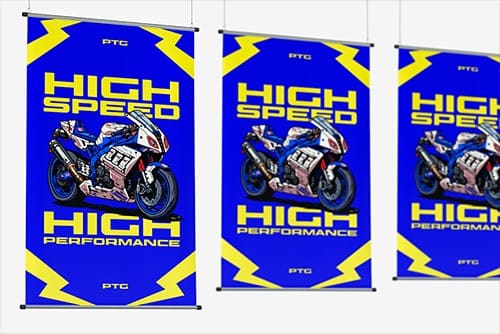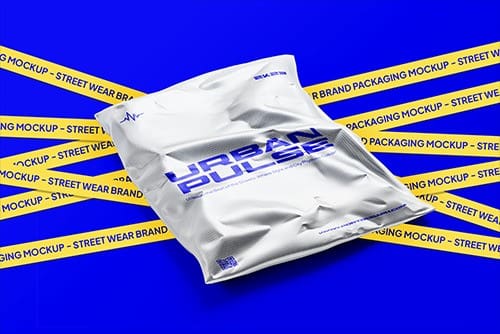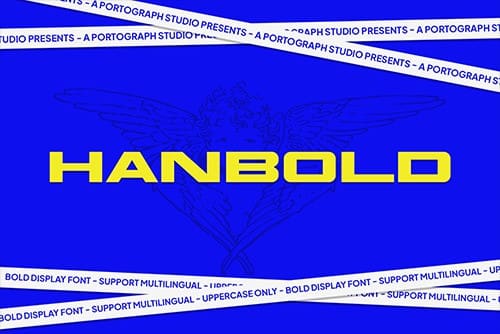
PTG hanbold Font
PTG hanbold Font, This typeface has a unique and attractive appearance. PTGHANBOLD looks great when combined with solid character fonts.
For branding projects, logos, wedding designs, social media posts, advertisements, product packaging, product designs, labels, photography, watermarks, invitations, stationery, and anything requiring handwritten taste, PTGHANBOLD is perfect.